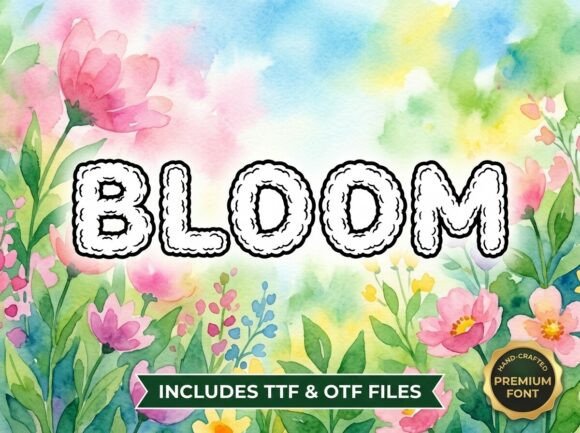
The Bloom Font: A Stunning Decorative Display Font to Elevate Your Designs
- ✅ Unique artistic elements that make your designs stand out
- ✅ Strong visual personality that’s perfect for bold headlines and artistic logos
- ✅ Versatile enough for creative packaging while maintaining a professional finish
Small Quirks to Keep in Mind ⚠️
While the Bloom Font is an amazing addition to any design project, there are a couple of things to be aware of:
- 🤔 It’s an ALL-CAPS (Uppercase Only) display typeface, which means it doesn’t include lowercase letters.
- 🤔 It’s specifically designed for high-impact headlines, logos, and decorative initials, so it might not be the best fit for body text or lengthy paragraphs.
The Bloom Font was crafted with passion and dedication by a talented designer who aimed to create a unique and eye-catching typeface. Inspired by the beauty of blooming flowers and the power of creative expression, this font is designed to make your designs shine. While the designer’s story is shrouded in mystery, their work speaks for itself – the Bloom Font is a stunning addition to any design project.
Q: Is the Bloom Font suitable for body text or lengthy paragraphs?
A: No, the Bloom Font is specifically designed for high-impact headlines, logos, and decorative initials. It’s not recommended for body text or lengthy paragraphs.